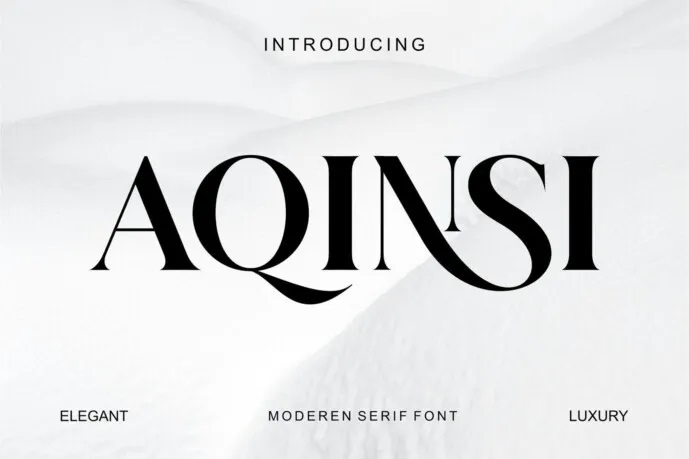
Aqinsi is an elegant and serif font. This font is both modern and nostalgic and is perfect for logos, magazines and social media. Already matched and ready to use together for your next design! For those of you who need a touch of elegance, class, chic and modernity for your designs, this font was created for you!
Aqinsi was built with OpenType features and includes ligatures, numbers, punctuation and also supports other languages.
Aqinsi Serif Font